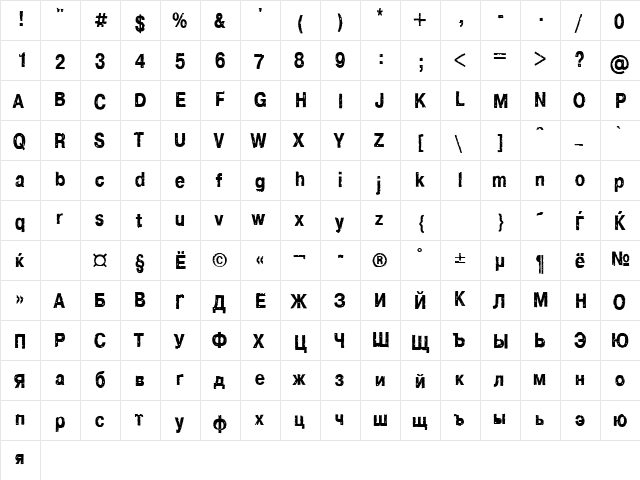
ft95 Regular
Design Context for ft95 Typeface
ft95 takes a measured approach to typography — its balanced proportions and neutral character make it a reliable workhorse for both digital and print work.